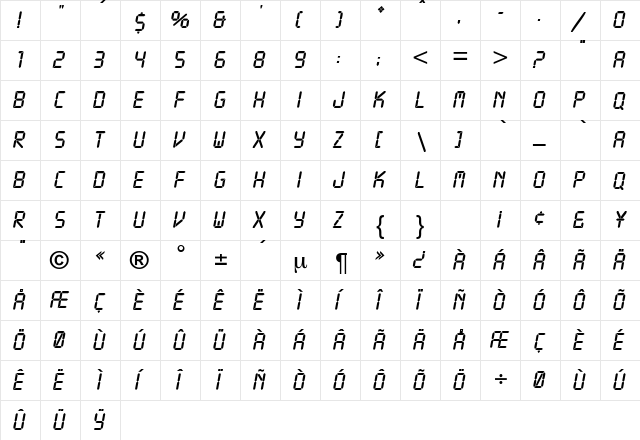
DigitsDB Normal
Design Context for DigitsDB Typeface
DigitsDB channels digital-age aesthetics through its sharp, structured letterforms — ideal for brands that want to signal innovation.
Pro Tip: Use DigitsDB in combination with a neutral sans for body text. Let it define the brand voice in headlines while keeping reading comfortable elsewhere.